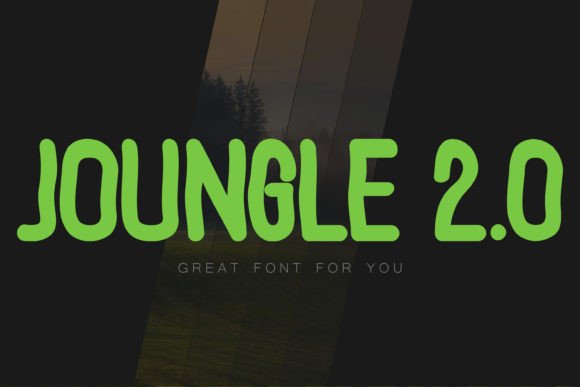
Adorn your Christmas cards with a font that exudes joy, warmth, and a touch of whimsy. Joungle 2.0, a captivating display font from the creative minds at MistyDesigns, awaits you to unleash your holiday spirit.
With Joungle 2.0, your Christmas cards will be the talk of the season. Its playful handwritten style dances across the page, inviting loved ones to join in the festive merriment. This font is more than just letters; it's an expression of your heartfelt sentiments, conveying the love and cheer that embody the Christmas spirit.
Picture this: your meticulously chosen words, adorned with the Joungle 2.0 font, dancing gracefully on the card. Each stroke, each curve, each swirl is a testament to your creativity and the joy you wish to share. Your recipients will feel the warmth of your wishes radiating from the page, carried by the enchanting embrace of Joungle 2.0.
Christmas is a time for celebration, laughter, and cherished memories. Joungle 2.0 captures this essence perfectly, adding a magical touch to your cards. It's a font that transforms ordinary greetings into extraordinary expressions of love and joy.
Don't settle for ordinary fonts that fade into the background. Embrace the captivating charm of Joungle 2.0 and make your Christmas cards stand out from the crowd. Let your heartfelt messages dance across the page, carried by this whimsical, handwritten font.
Joungle 2.0 is not just a font; it's an experience. It's a way to express your love, spread cheer, and create lasting memories this Christmas season. Join the chorus of satisfied users who have discovered the magic of Joungle 2.0. Let your creativity soar, let your cards sparkle, and let the festive spirit flow freely.